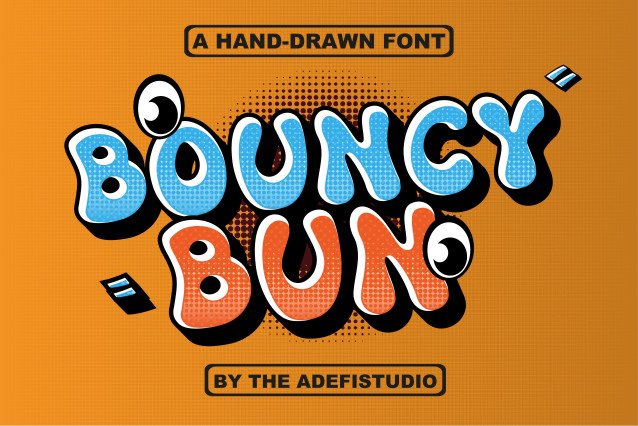
Bouncy Bun Font
Bouncy Bun Font is a bubble-style display font that evokes a cheerful, playful, and adorable feel. The letters are round, bold, and feel light, like bouncing balloons. Its soft, friendly character makes this font perfect for children’s designs, sweet products, toys, and creative projects that require a cheerful and energetic feel. Bubble Bouncy Bun provides a unique touch that immediately catches the eye. This font is ideal for titles, posters, logos, packaging, and even social media that want to appear fresh, cheerful, and full of imagination.